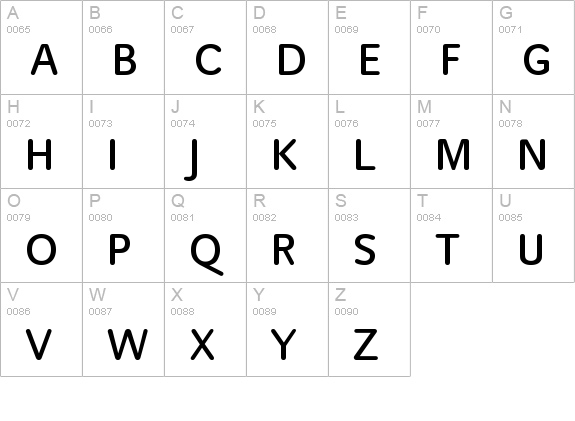
UlissaRounded Font Details
UlissaRounded is a modern and stylish font that will add a touch of elegance to any design project. Its rounded edges and smooth curves give it a friendly and approachable look, making it perfect for a wide range of applications, from logos and branding to headlines and body text. This versatile font is available in a variety of weights, allowing you to create a visual hierarchy and add emphasis where needed. Whether you're designing a website, a poster, or a brochure, UlissaRounded is sure to make a lasting impression. One of the best things about UlissaRounded is that it is free! That's right, this beautiful font can be freely downloaded at FontsMarket.com. So, you don't have to worry about breaking the bank to add this stunning typeface to your collection. With UlissaRounded, you'll have access to a high-quality and professionally designed font that will elevate your designs to the next level. Don't miss out on this opportunity to enhance your projects with a font that is not only visually appealing but also freely available for download. Visit FontsMarket.com today and get your hands on UlissaRounded.